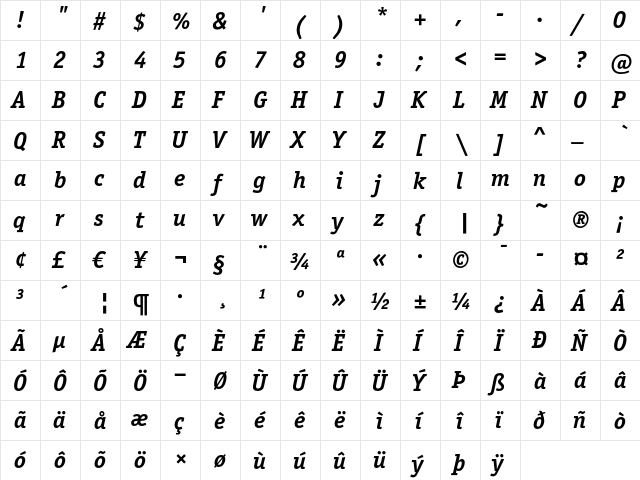
Officina Serif ITC Bold Italic
Design Context for Officina Serif ITC Typeface
Officina Serif ITC carries the refined structure of traditional serif typography, with bracketed terminals and considered proportions that communicate credibility and craft. The dynamic lean of this cut emphasises speed and emphasis in any layout. Its bold stroke weight gives it real presence on the page.
Pro Tip: Set Officina Serif ITC with slightly loose tracking in headlines to let each letterform's detail read clearly at display sizes.